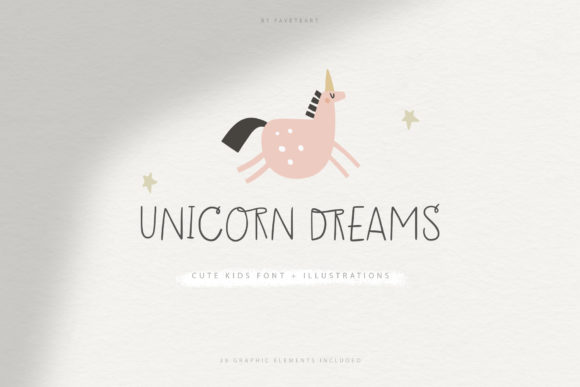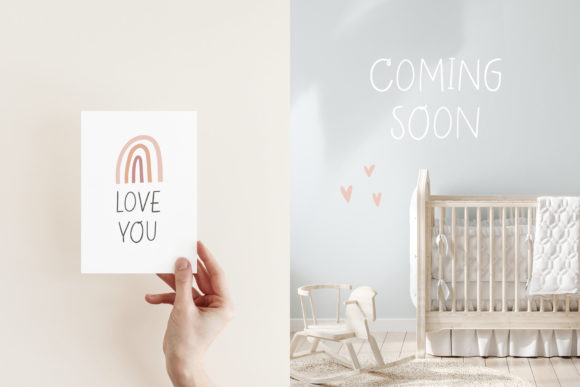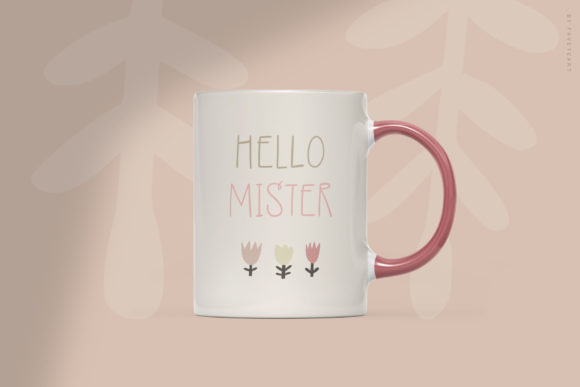
About Unicorn Dreams Font
Unicorn Dreams is a cute and simple lettered handwritten font that can be used for all chalkboard quotes or teaching material! Its authentic look will add a personal and realistic feel to your designs.